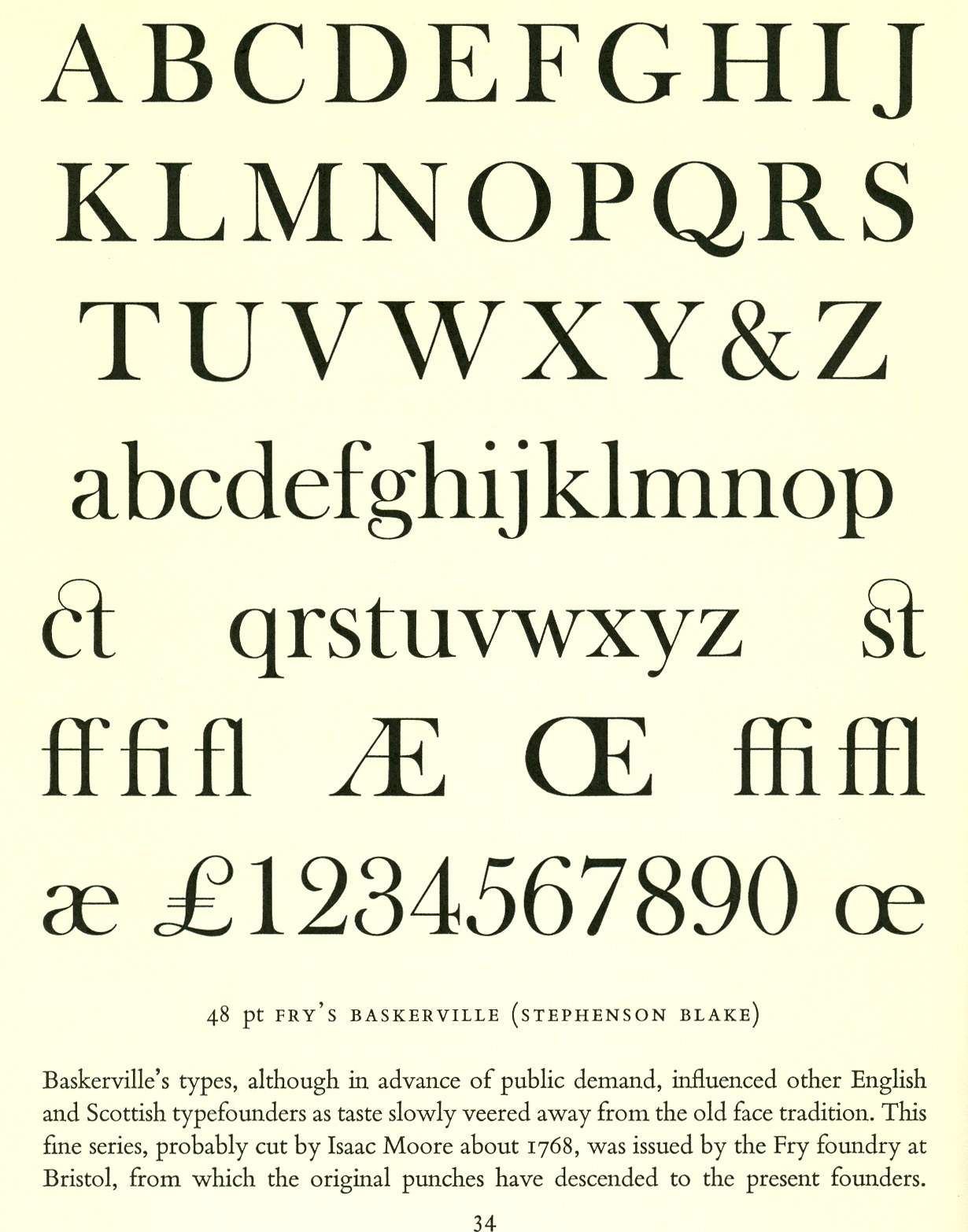
Fonts Baskerville Old Face
Baskerville is a transitional serif typeface designed by john baskerville in 1757. Baskerville old face regular font. Also, the baskerville old face regular font is perfect for branding projects, housewares.